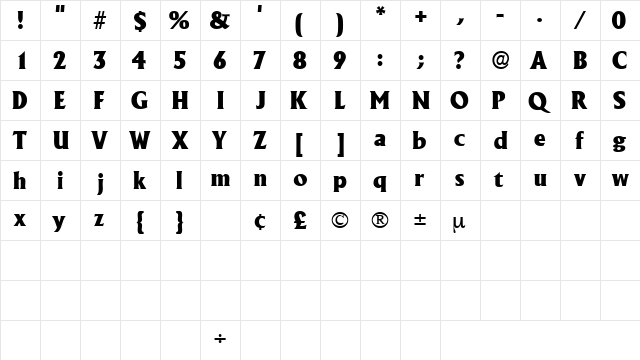
AnkuraSSK Regular
Design Context for AnkuraSSK Typeface
AnkuraSSK is a composed and adaptable typeface that performs quietly and consistently across a wide range of design contexts.
Pro Tip: Pair AnkuraSSK with a font of contrasting weight or personality to build a more expressive typographic hierarchy.